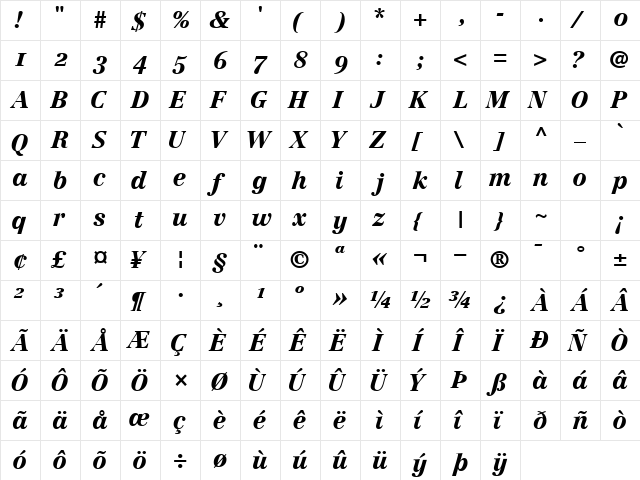
CenturyRepriseBlackOSSSK Italic
Design Context for CenturyRepriseBlackOSSSK Typeface
CenturyRepriseBlackOSSSK is a composed and adaptable typeface that performs quietly and consistently across a wide range of design contexts. Its italic angle brings a sense of urgency and motion to the letterforms.
Pro Tip: Try CenturyRepriseBlackOSSSK for annotation and caption copy alongside an upright companion — the contrast in angle creates a dynamic but ordered typographic system.